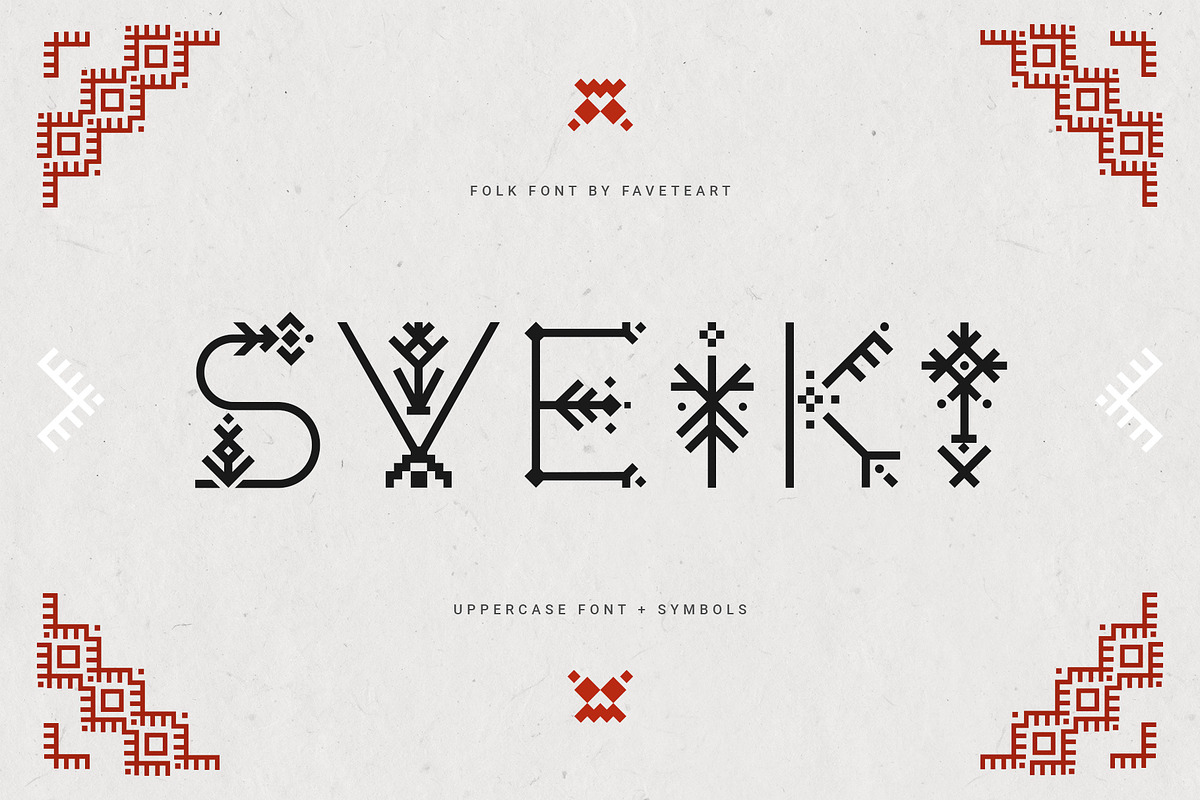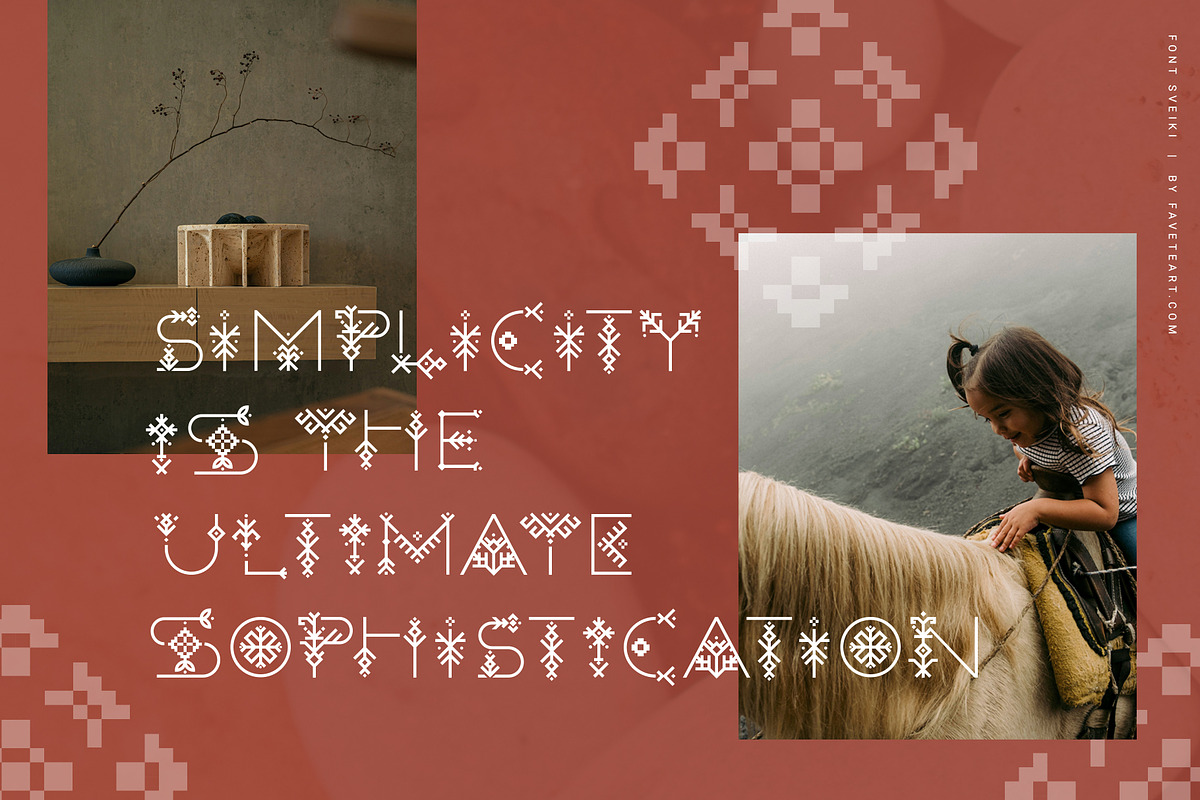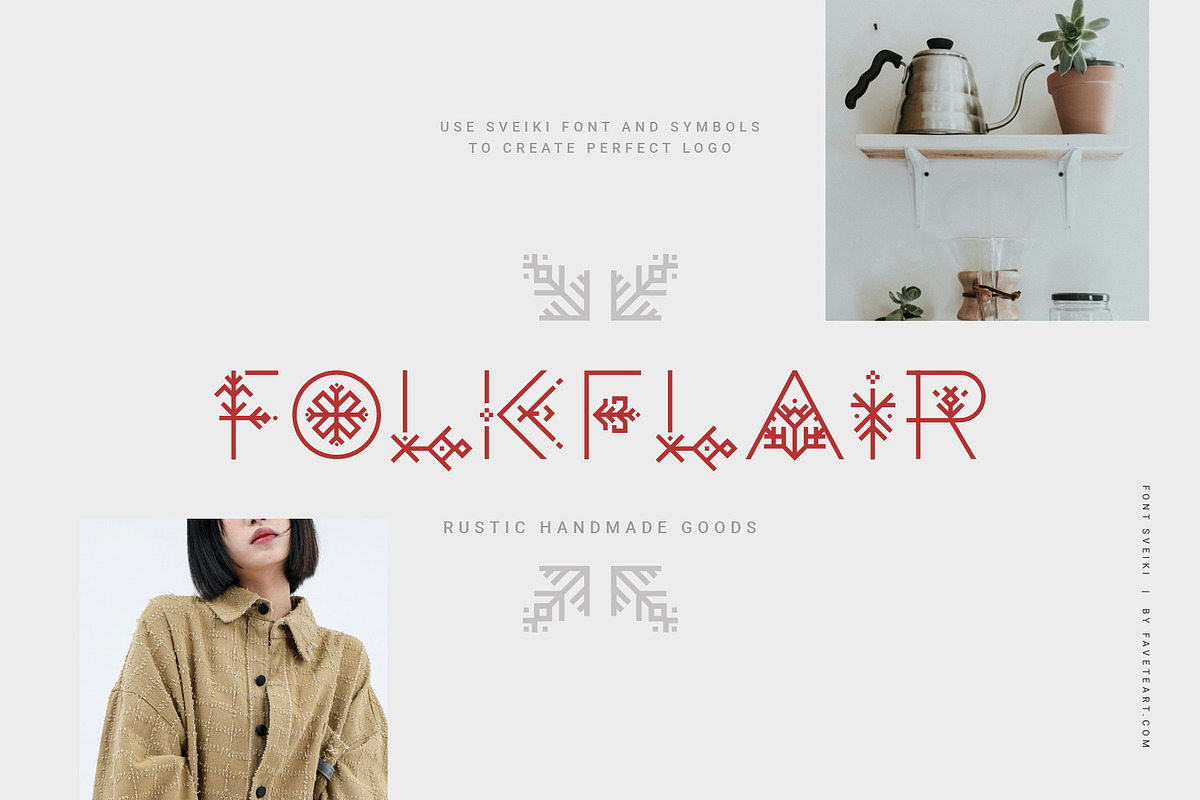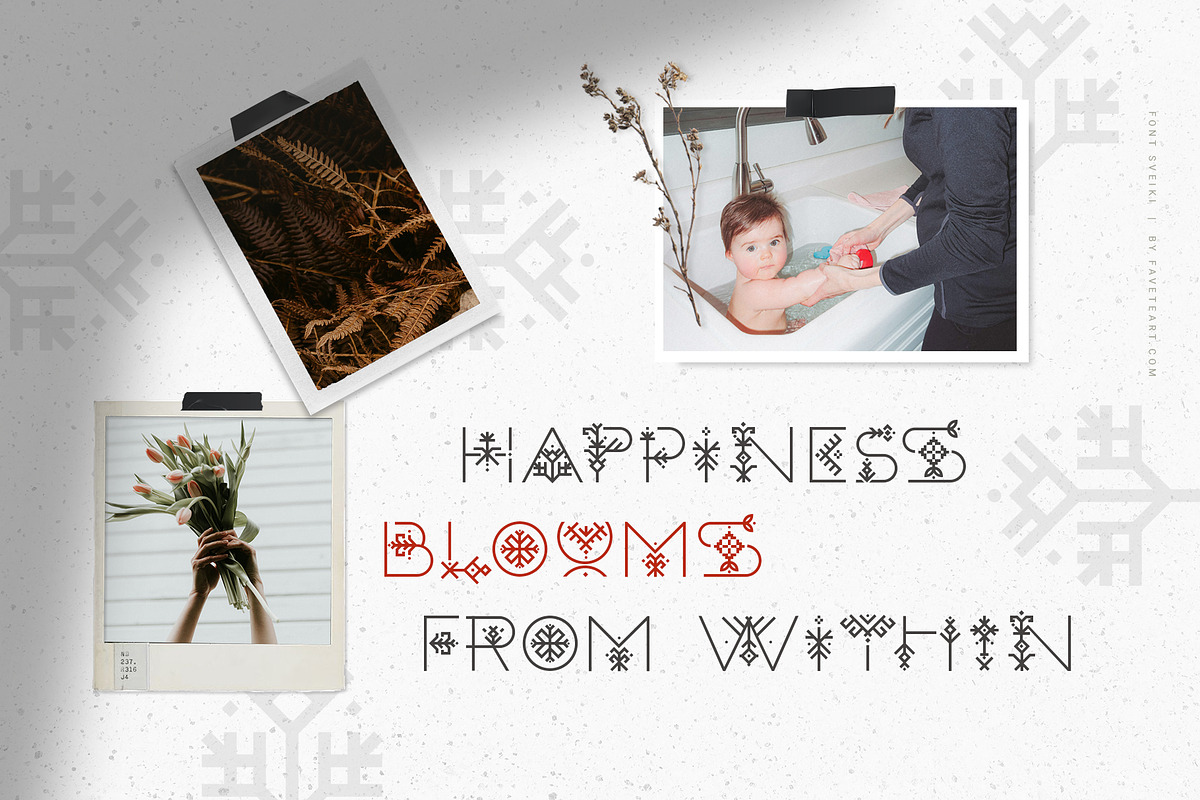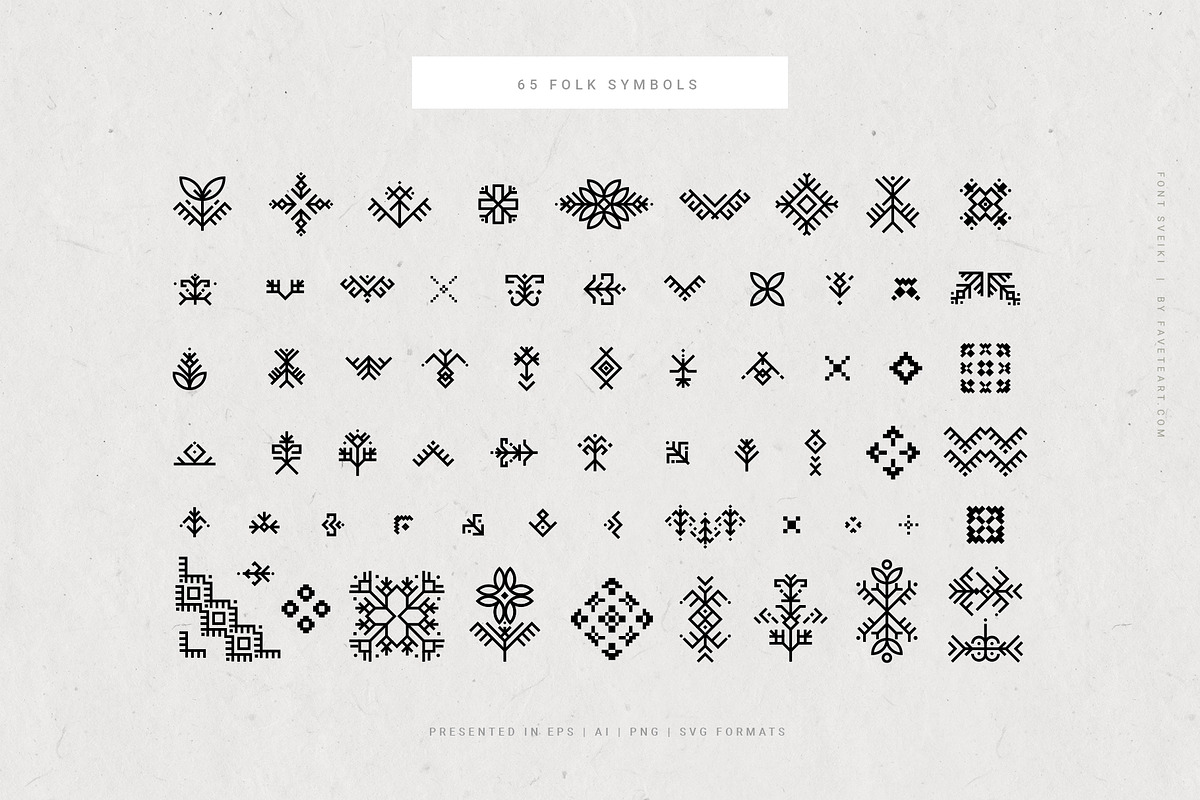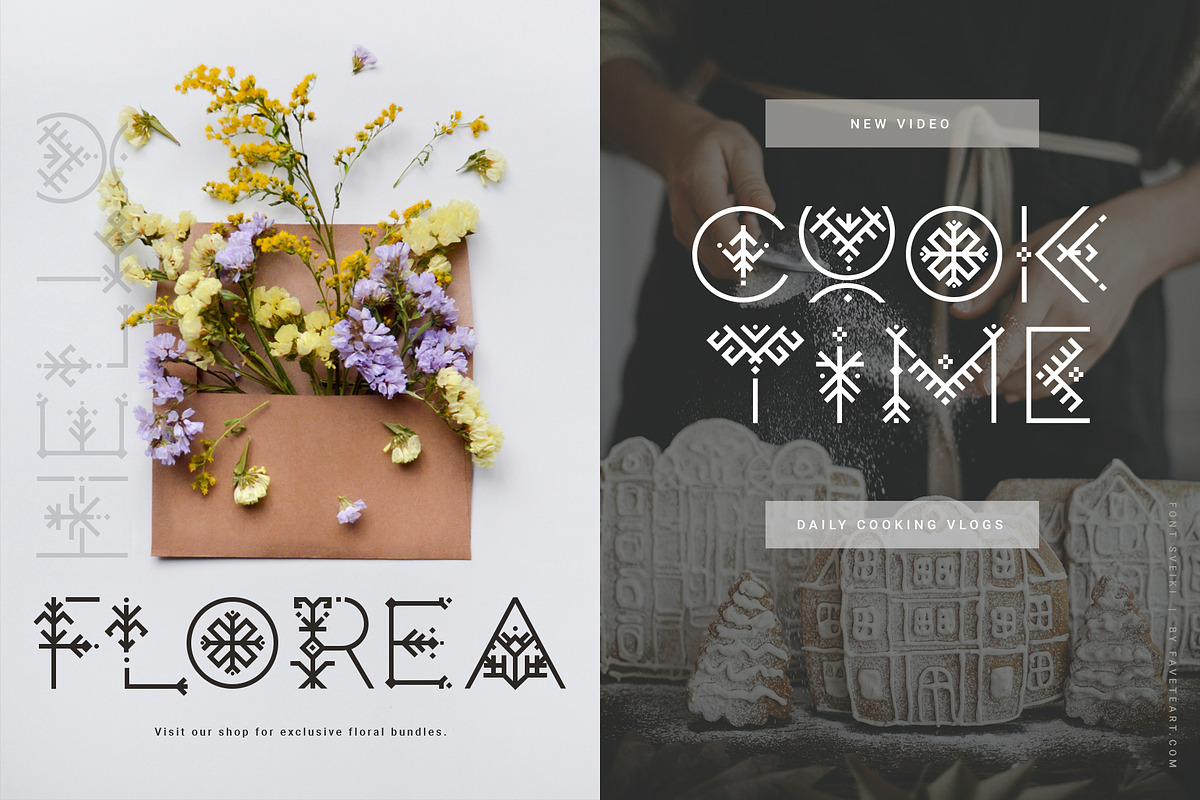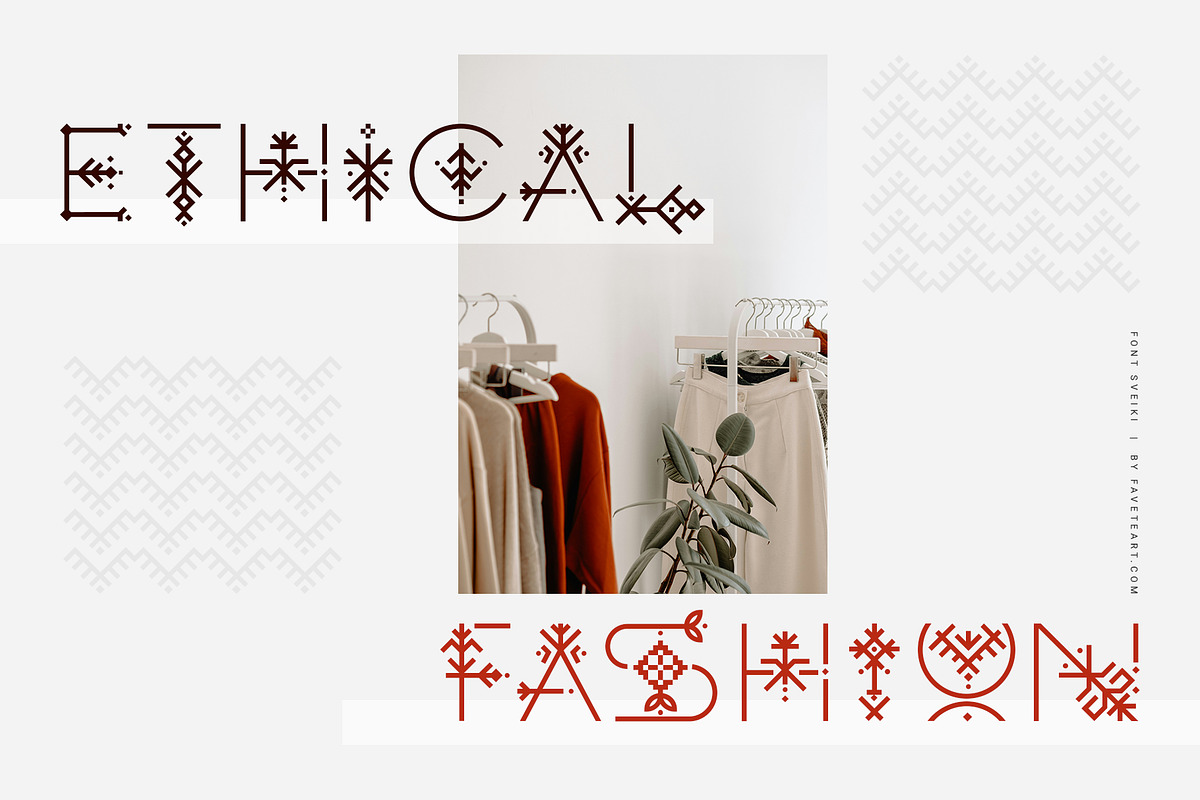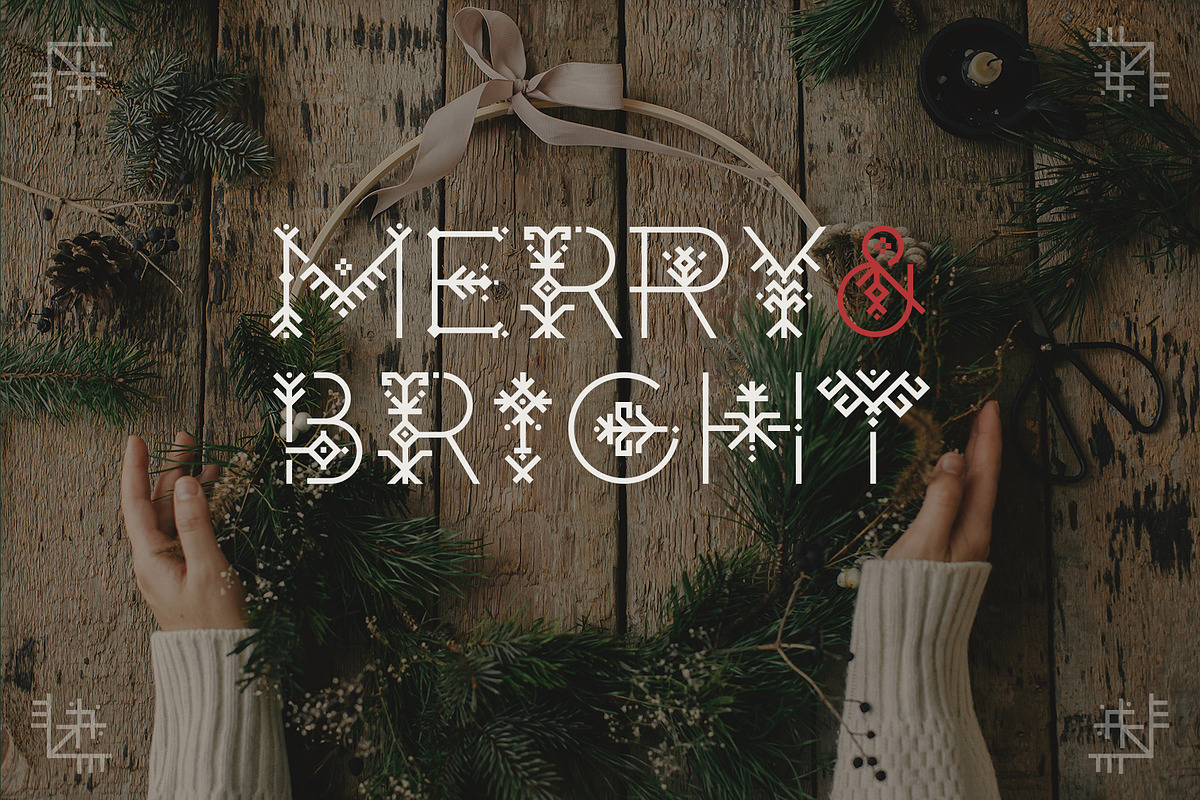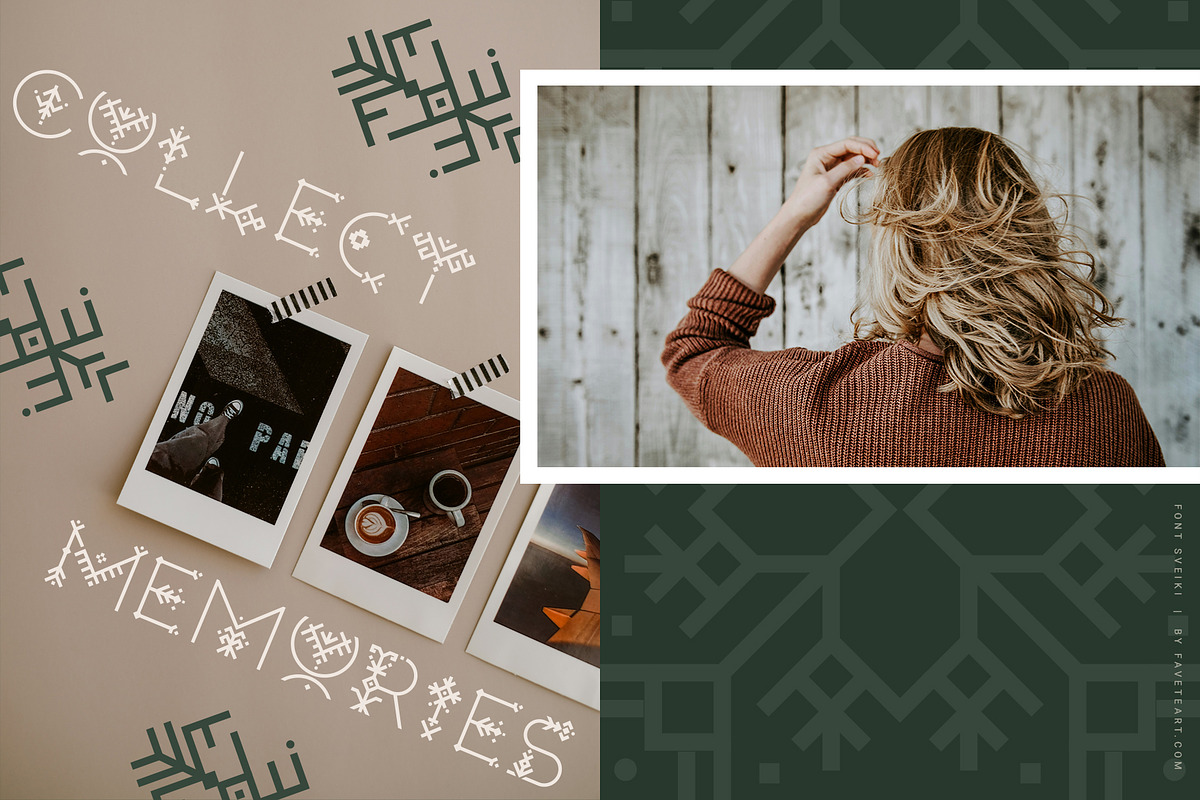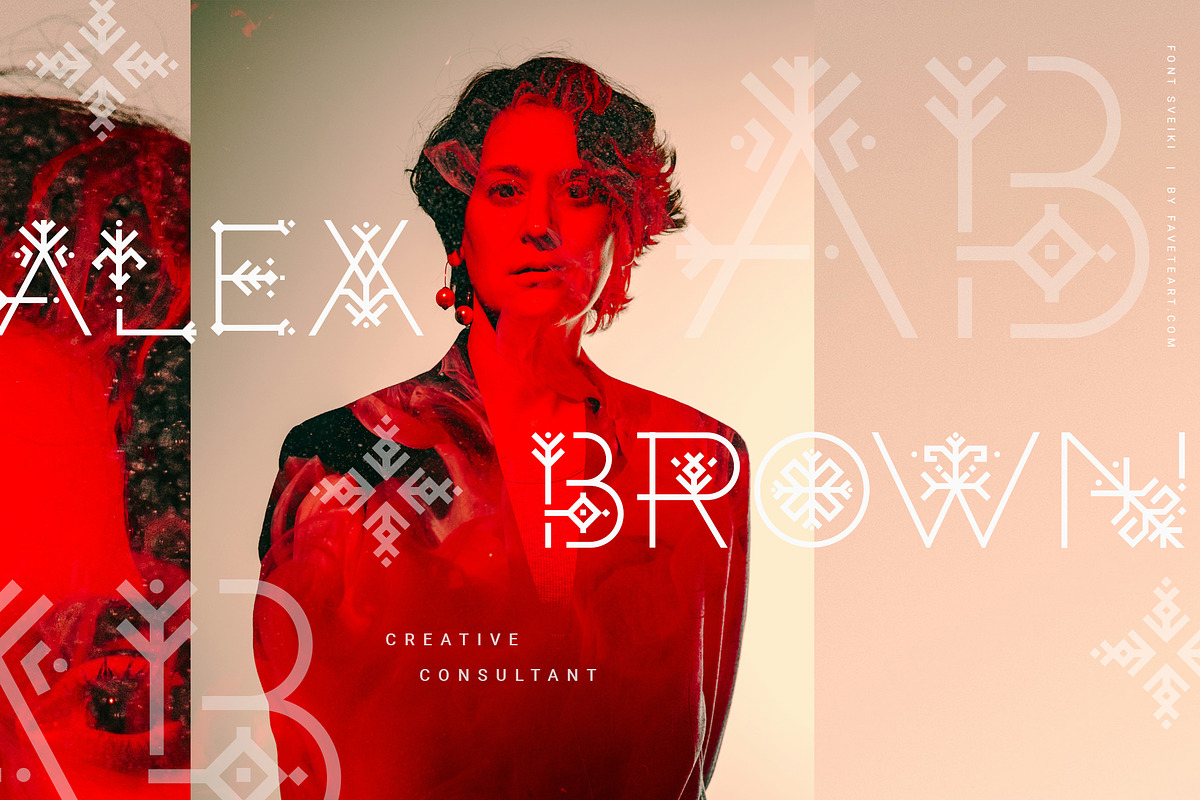
Sveiki | Unique Nordic Font
Sveiki is a folk uppercase font inspired by traditional Latvian patterns, capturing the rich cultural heritage. Designed and crafted in Latvia (where I live), it combines the essence of folk art with modern typography, making it perfect for projects that seek to convey authenticity and elegance - especially where you need to make a statement.
Sveiki includes massive latin-based language support for most common European languages (just type something in the text box below and see the characters).